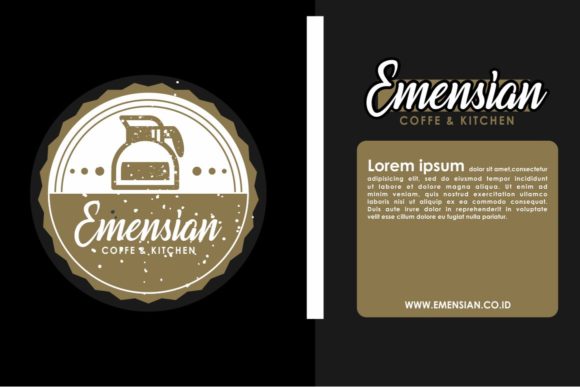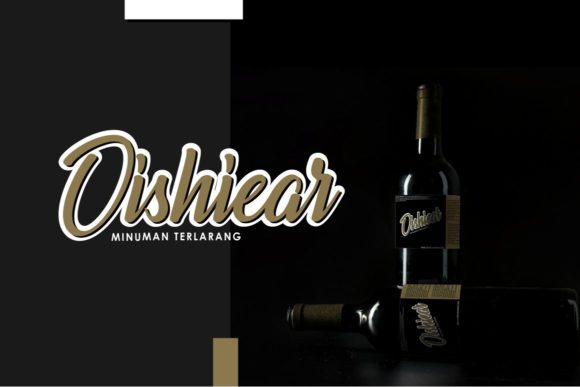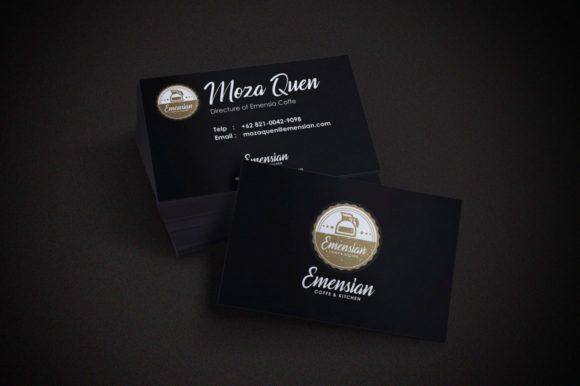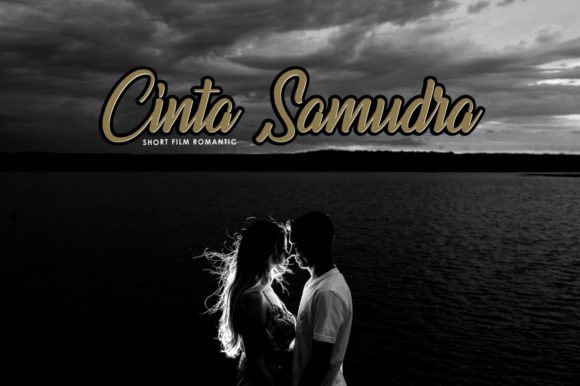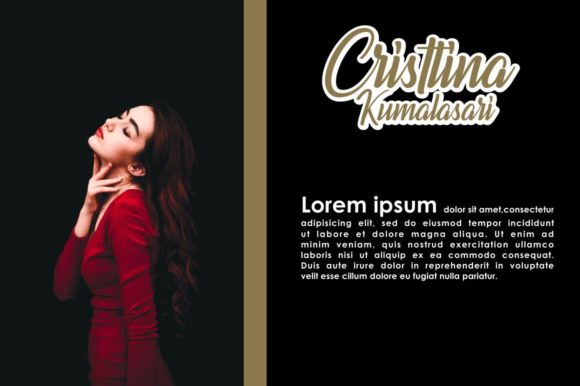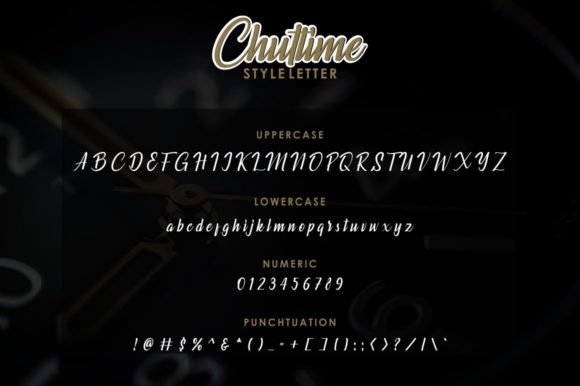
Introducing Chuttime Font: The Ultimate Bold and Fun Handwritten Font
Are you tired of using the same old fonts in your designs? Look no further! Chuttime Font is here to revolutionize your typography with its unique, bold, and fun handwritten style. This exciting font is perfect for designers, crafters, and anyone looking to add a personal touch to their projects.
What Makes Chuttime Font So Special?
Chuttime Font is a fun and cool handwritten font that exudes a bold vibe. Its distinctive feel is sure to capture the attention of your audience and set your designs apart from the rest. Whether you’re working on a creative project, crafting a brand identity, or simply looking for a new way to express yourself, Chuttime Font is the perfect choice.
Key Features of Chuttime Font
- Unique Handwritten Style: Chuttime Font boasts a one-of-a-kind handwritten style that’s both fun and bold.
- Bold Vibe: This font is perfect for making a statement and adding a touch of personality to your designs.
- Versatile: Chuttime Font can be used for a wide range of projects, from creative designs to branding and crafting.
- Easy to Read: Despite its bold style, Chuttime Font is easy to read, making it perfect for use in a variety of contexts.
Uses for Chuttime Font
Chuttime Font is incredibly versatile and can be used for a wide range of projects, including:
- Creative Designs: Use Chuttime Font to add a touch of personality to your creative designs, such as posters, flyers, and brochures.
- Branding: Create a bold and memorable brand identity with Chuttime Font.
- Crafting: Add a personal touch to your crafting projects, such as handmade cards, gift tags, and scrapbooking.
- Digital Projects: Use Chuttime Font in your digital projects, such as social media graphics, blog posts, and website designs.
Why Designers and Crafters Love Chuttime Font
Designers and crafters love Chuttime Font for its unique and bold style, which adds a touch of personality to any project. Here are just a few reasons why:
- High-Quality: This font is of high quality, ensuring that it looks great in any project.
- Unique Style: Chuttime Font’s unique style ensures that your designs stand out from the rest.
How to Get the Most Out of Chuttime Font
To get the most out of Chuttime Font, try the following tips:
- Experiment with Different Sizes: Play around with different font sizes to find the perfect fit for your project.
- Pair with Other Fonts: Pair Chuttime Font with other fonts to create a unique and interesting contrast.
- Use in Combination with Images: Use Chuttime Font in combination with images to add a touch of personality to your designs.
Chuttime Font is a fun and cool handwritten font with a bold vibe that’s sure to capture the attention of your audience. With its unique feel, versatility, and ease of use, this font is perfect for designers, crafters, and anyone looking to add a personal touch to their projects. So why wait? Fall in love with Chuttime Font and take your designs to the next level!